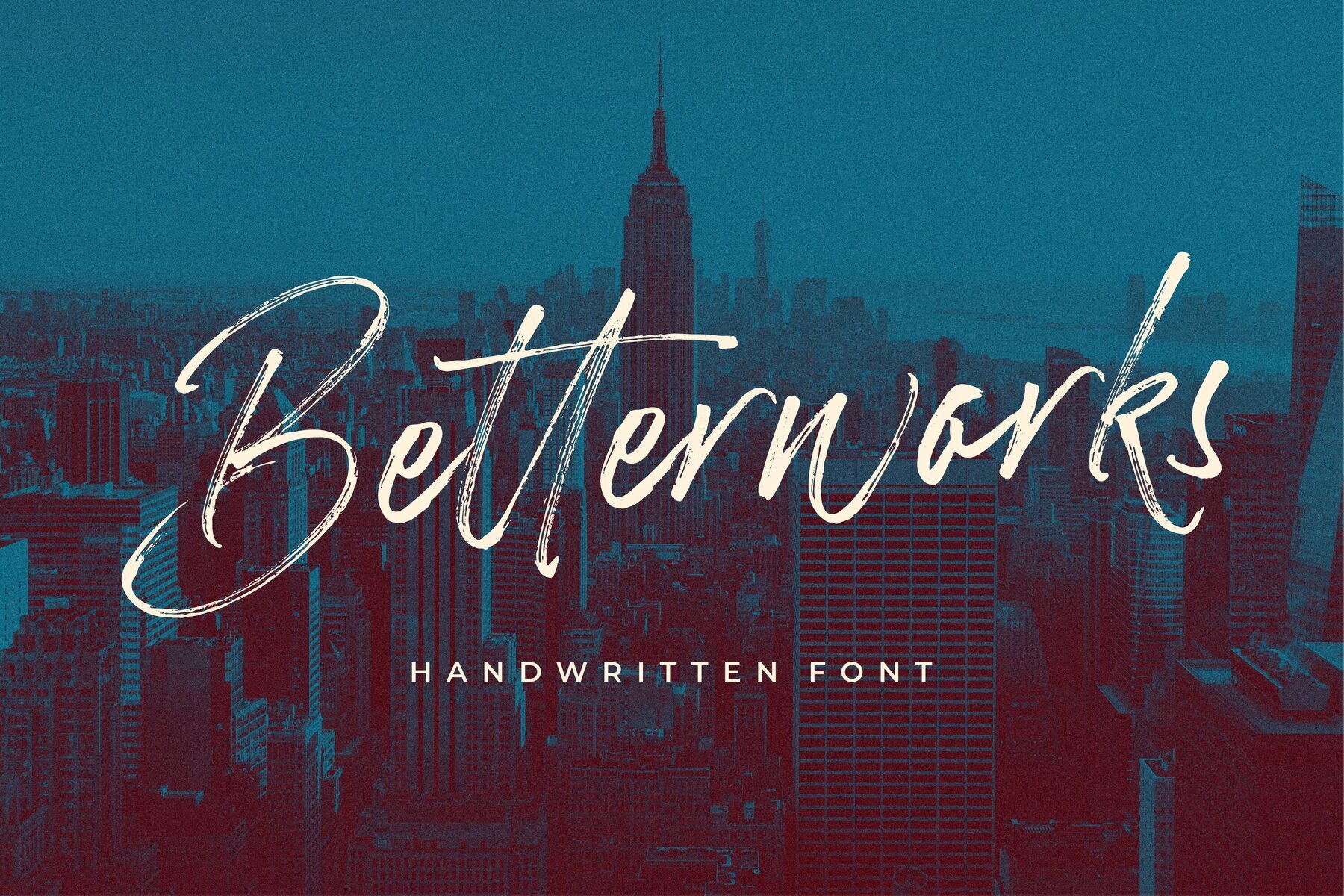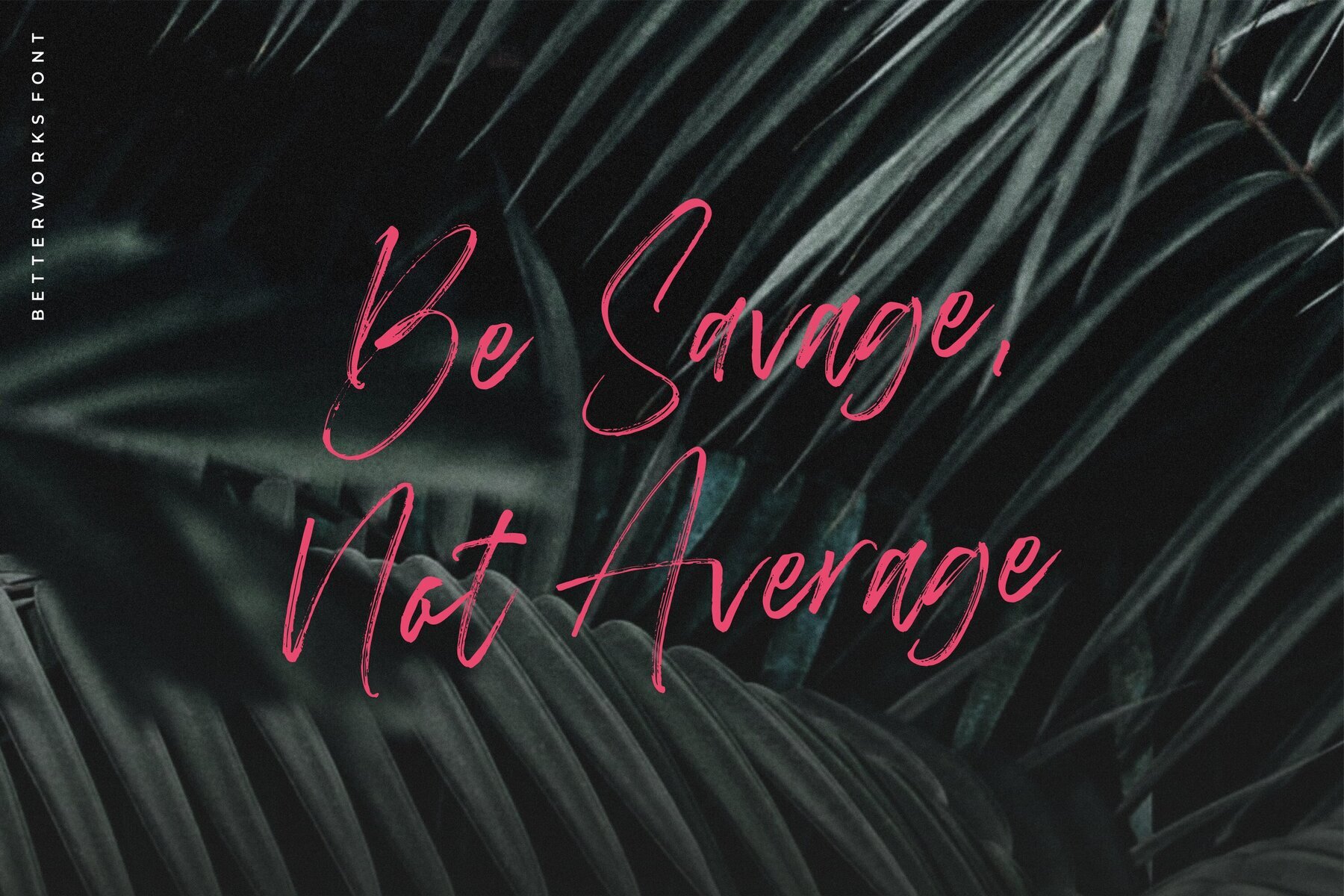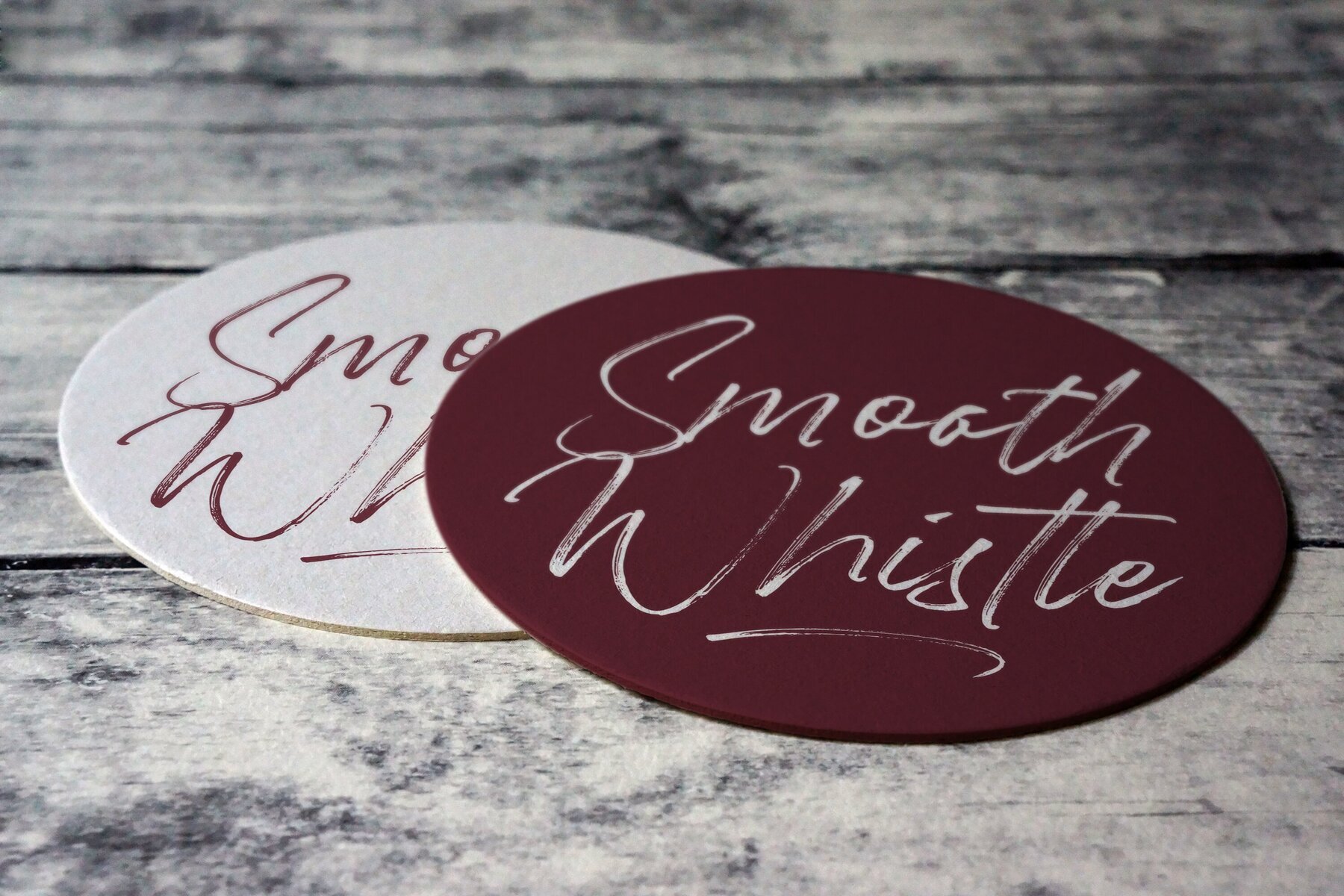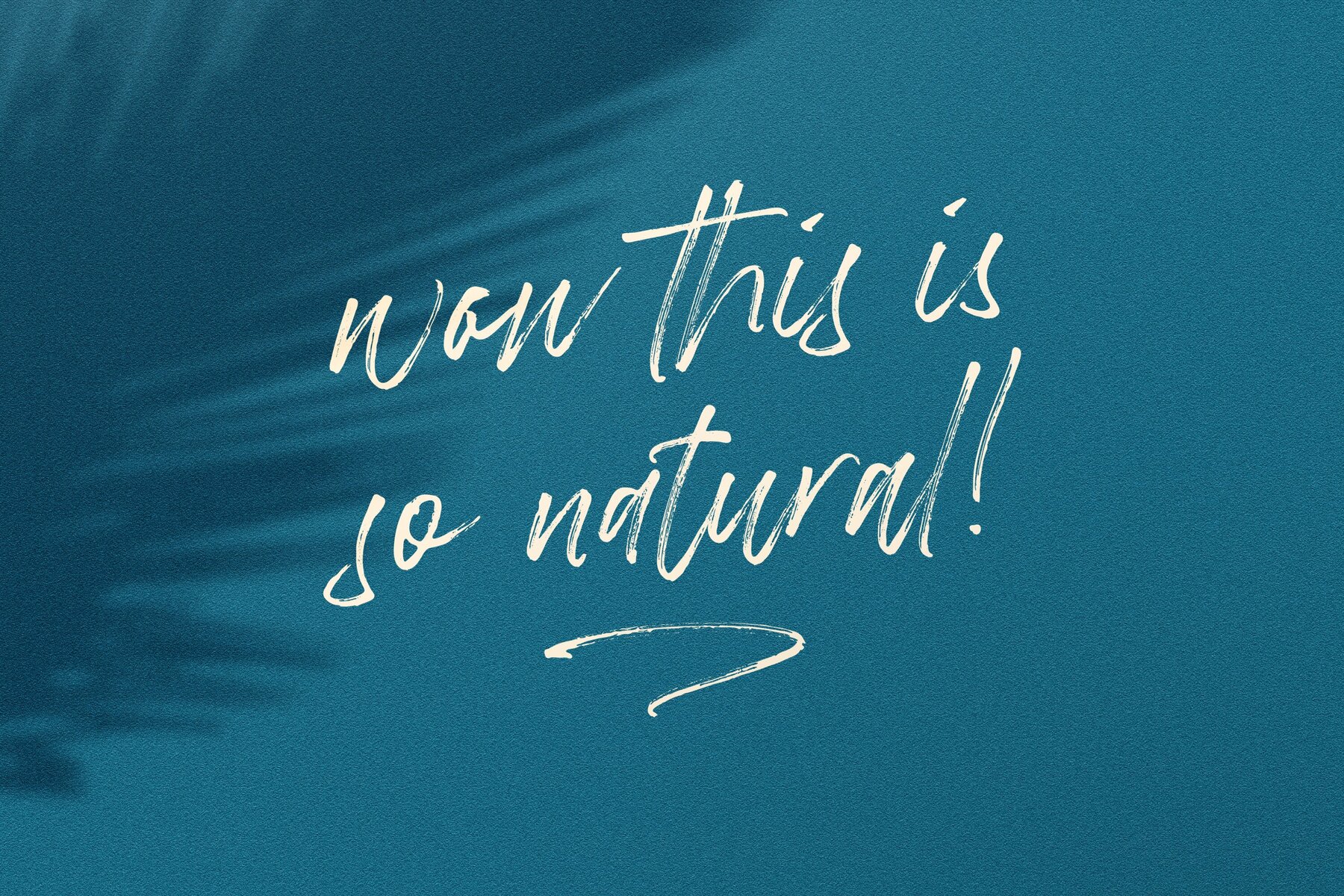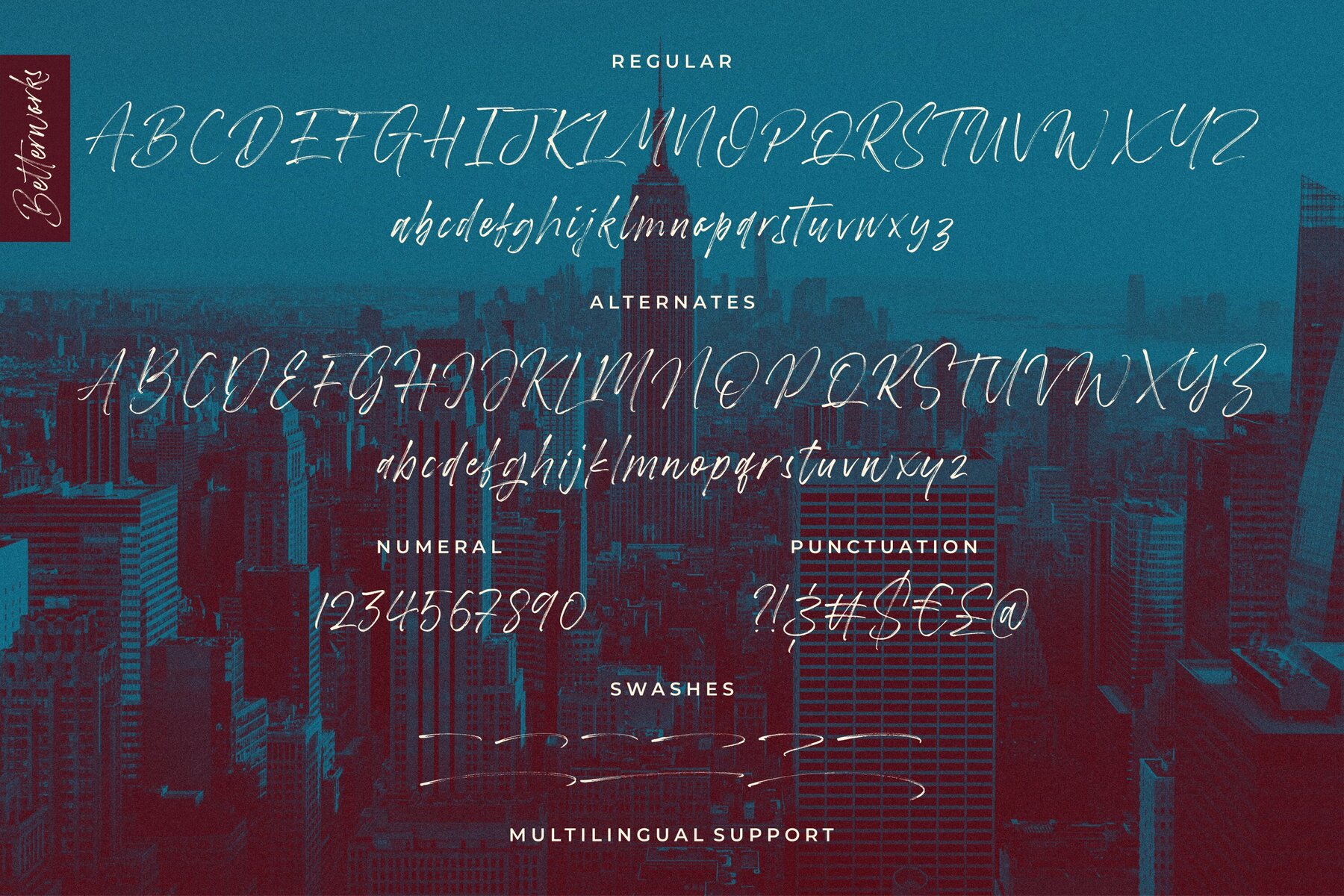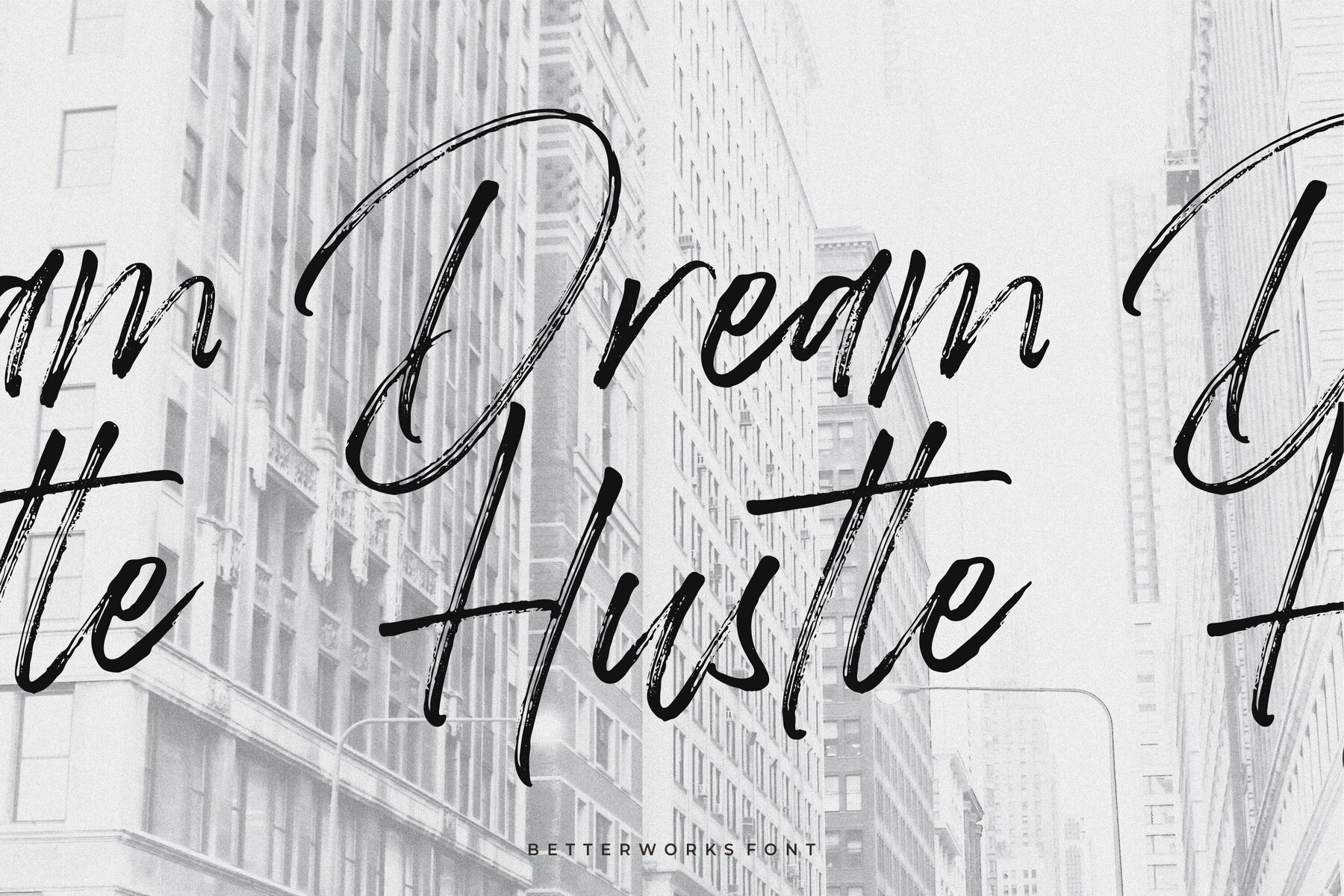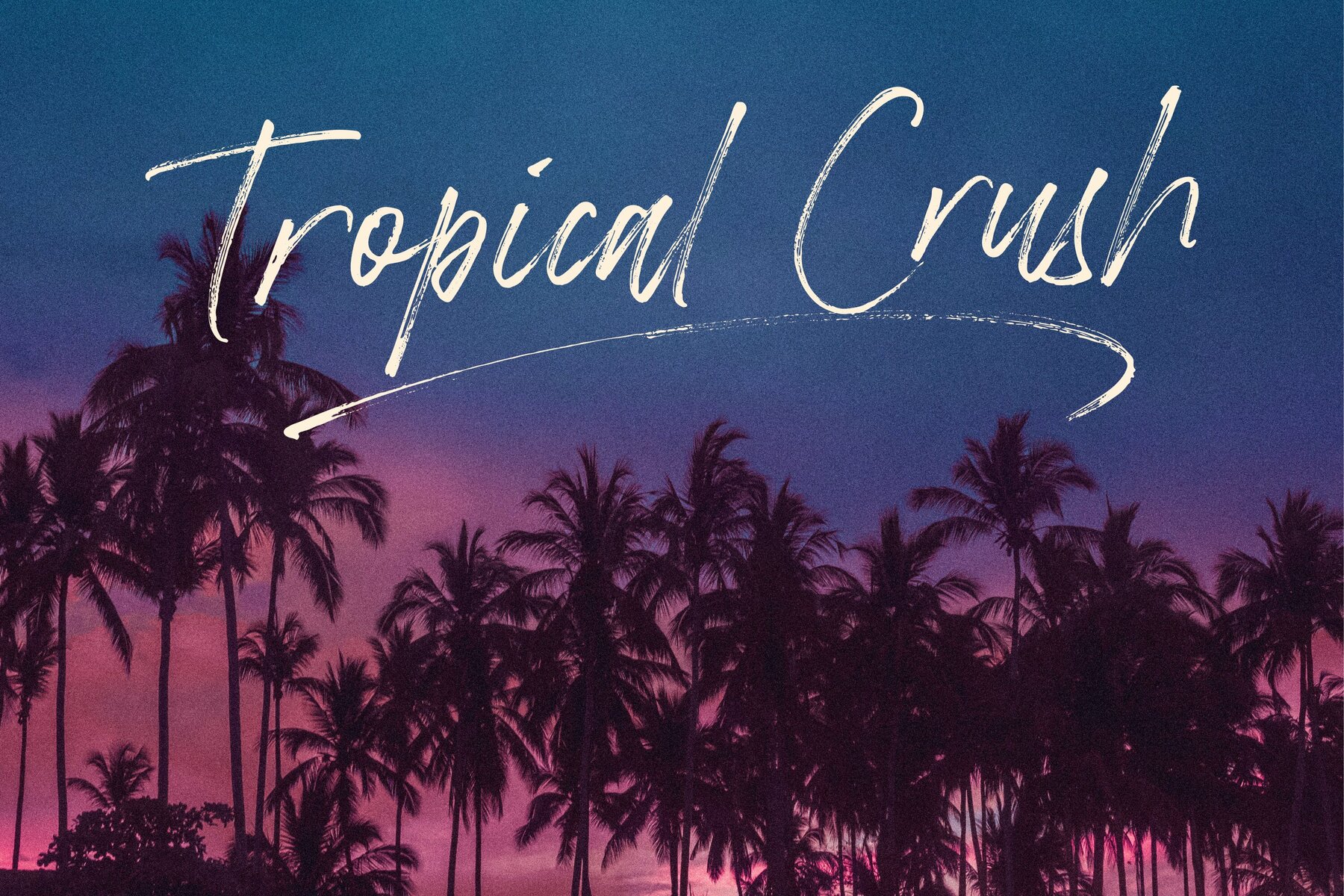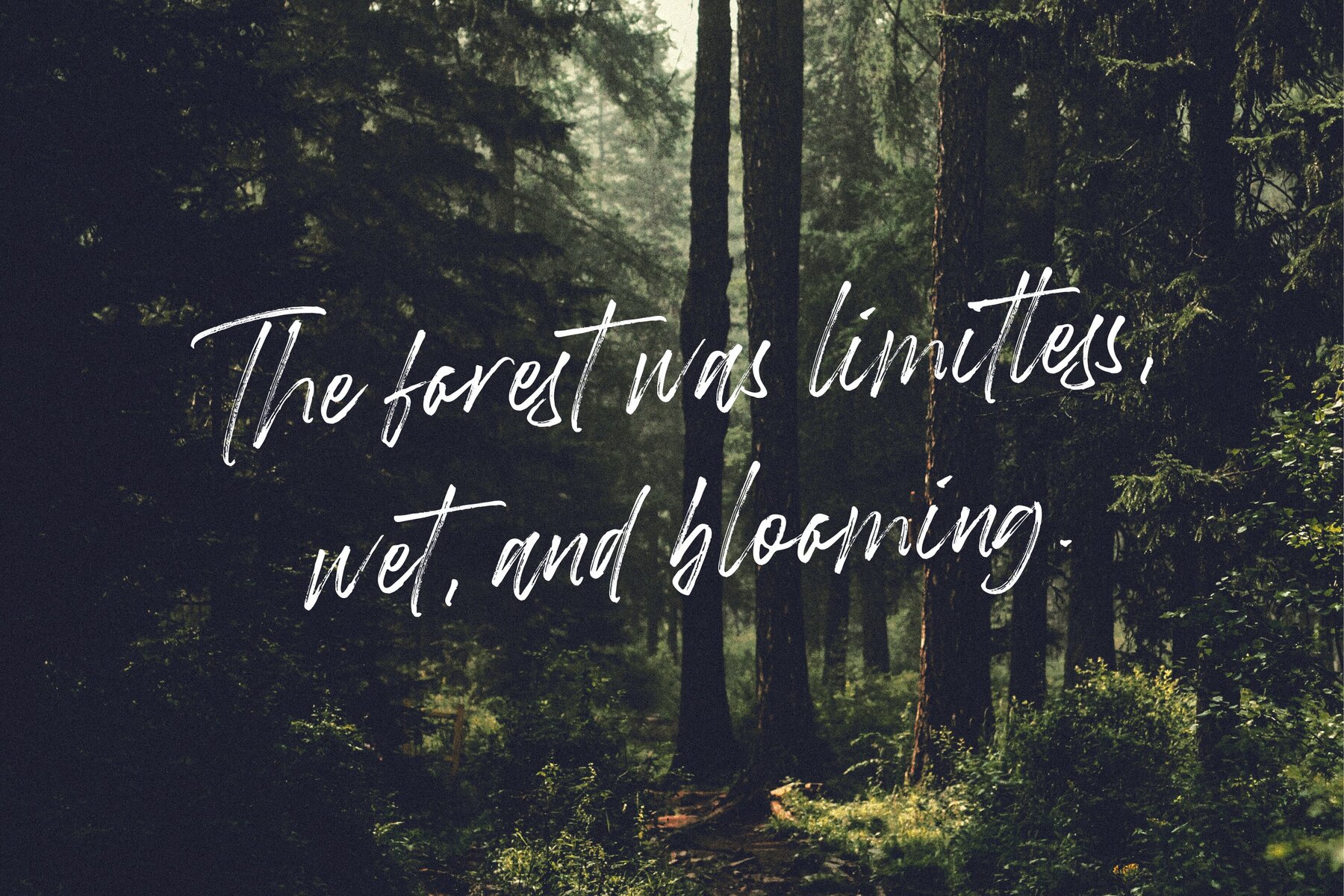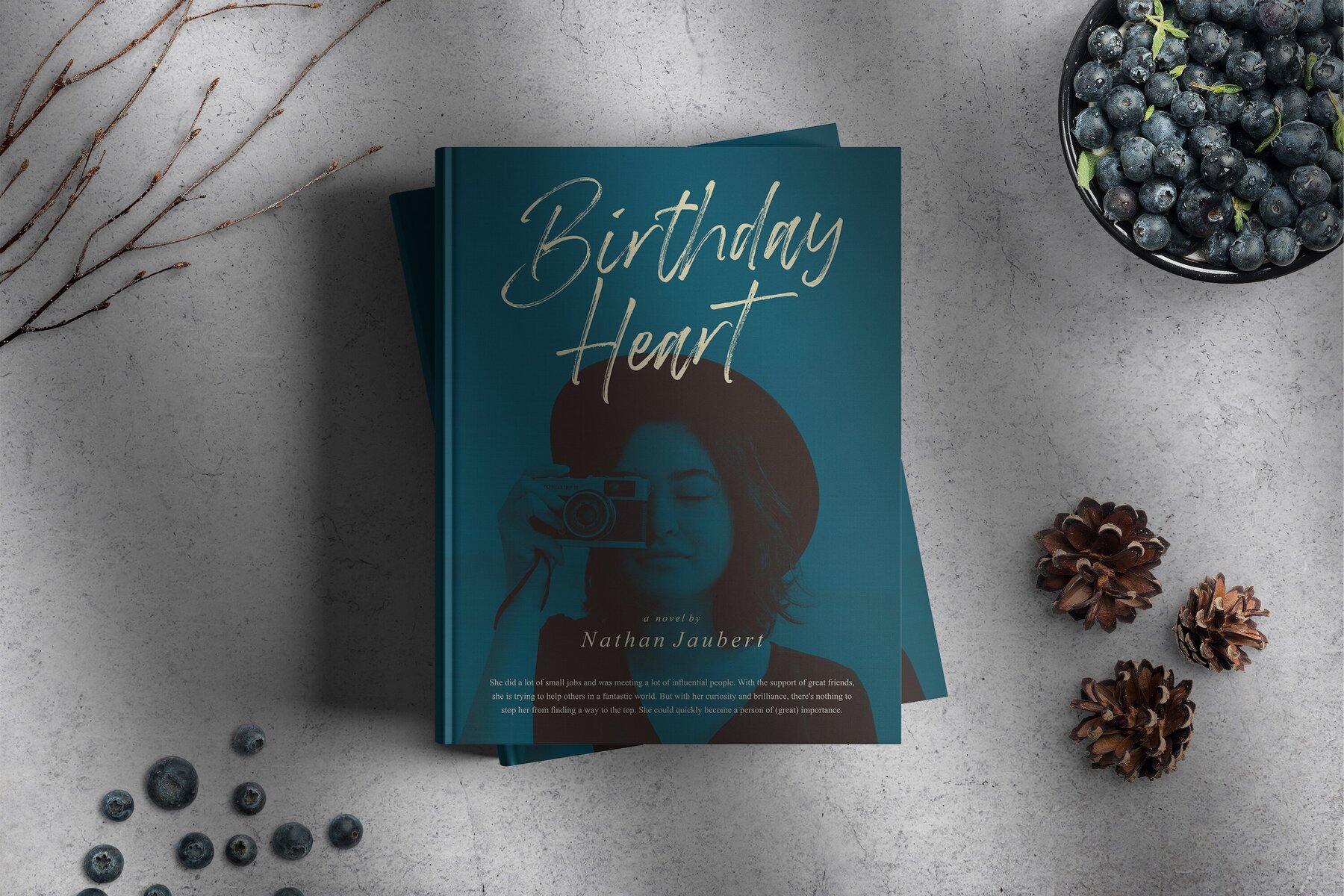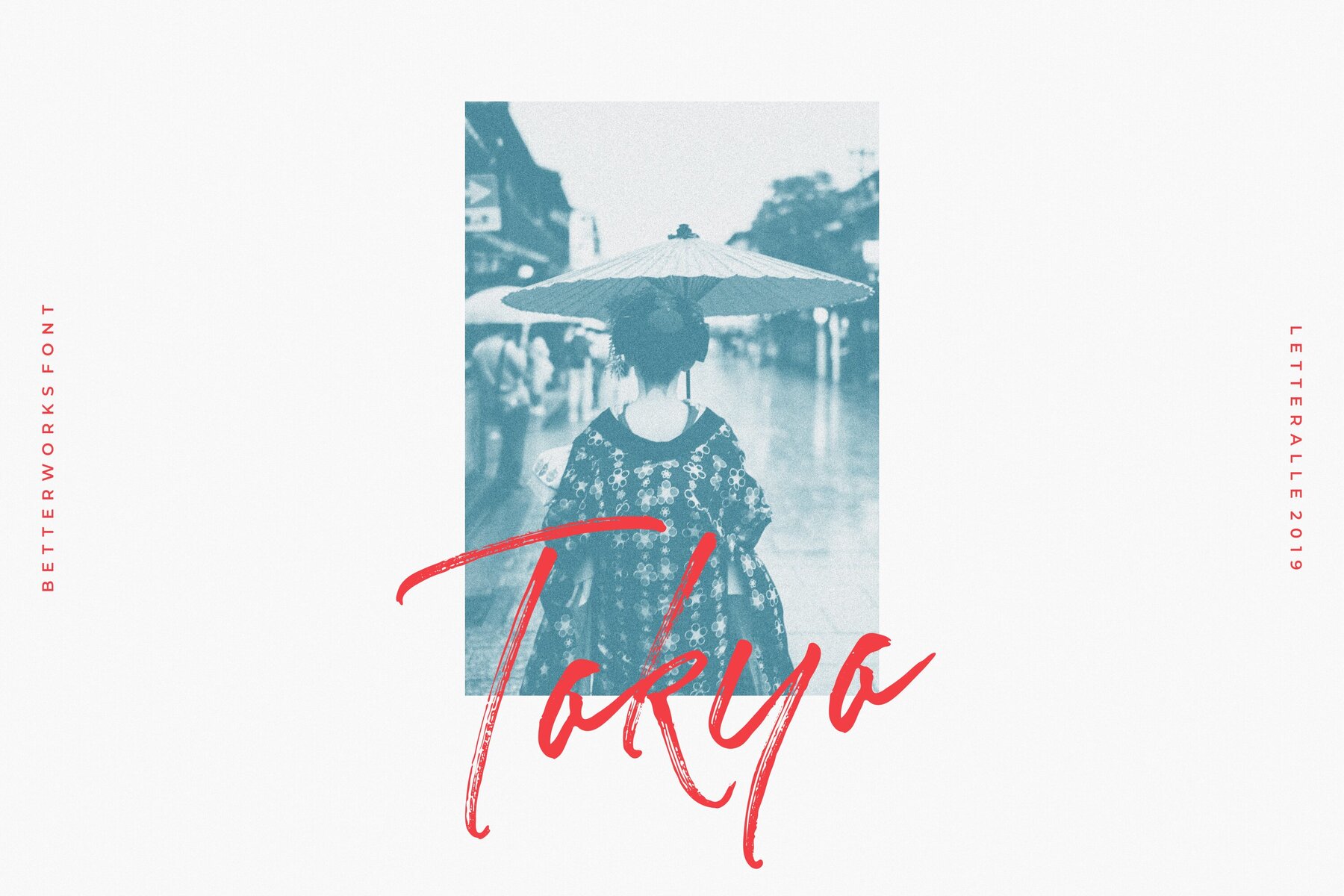
Betterworks Font
Betterworks is a captivating and modern handbrushed font, designed with intricate brush details that convey a natural and authentic impression.Betterworks: A Handbrushed Font with Charm